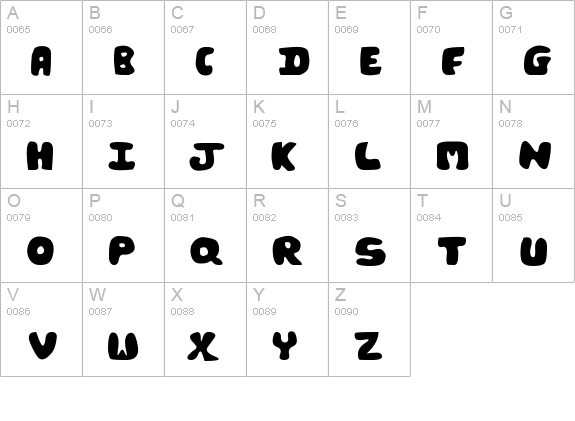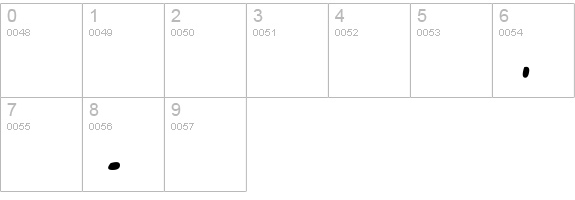
YB Hippie Font Details
YB Hippie font is a groovy and retro typeface that exudes a cool and laid-back vibe. With its unique and whimsical design, this font is perfect for adding a fun and playful touch to your projects. The flowing lines and quirky characters of YB Hippie font will transport you back to the colorful and carefree days of the 1960s and 70s. The best part? YB Hippie font is available for free download at FontsMarket.com. Whether you're working on a vintage-inspired poster, a funky logo, or just want to add a touch of nostalgia to your designs, YB Hippie font is the perfect choice. So go ahead and bring some peace, love, and good vibes to your projects with YB Hippie font!